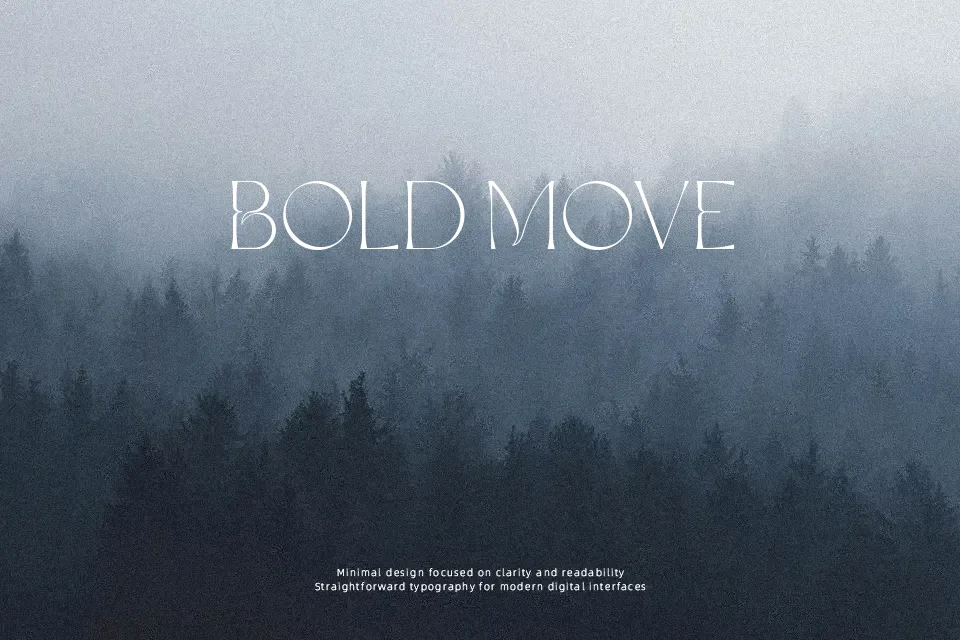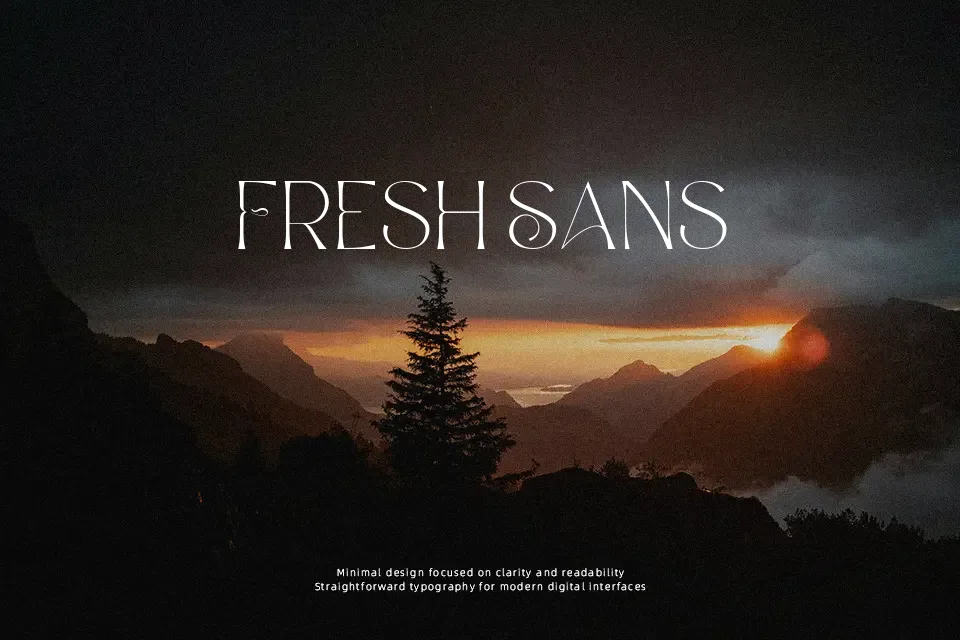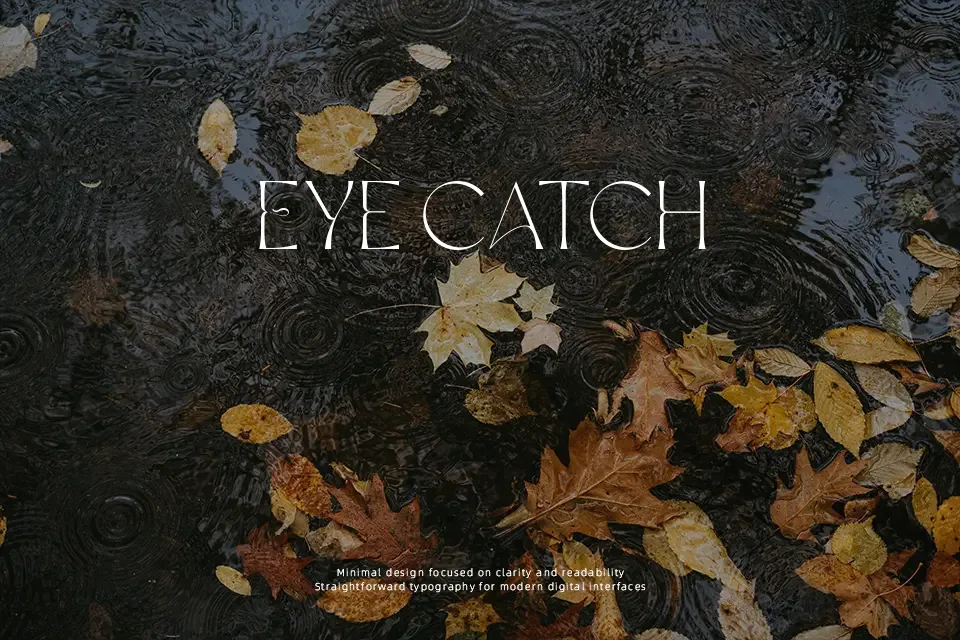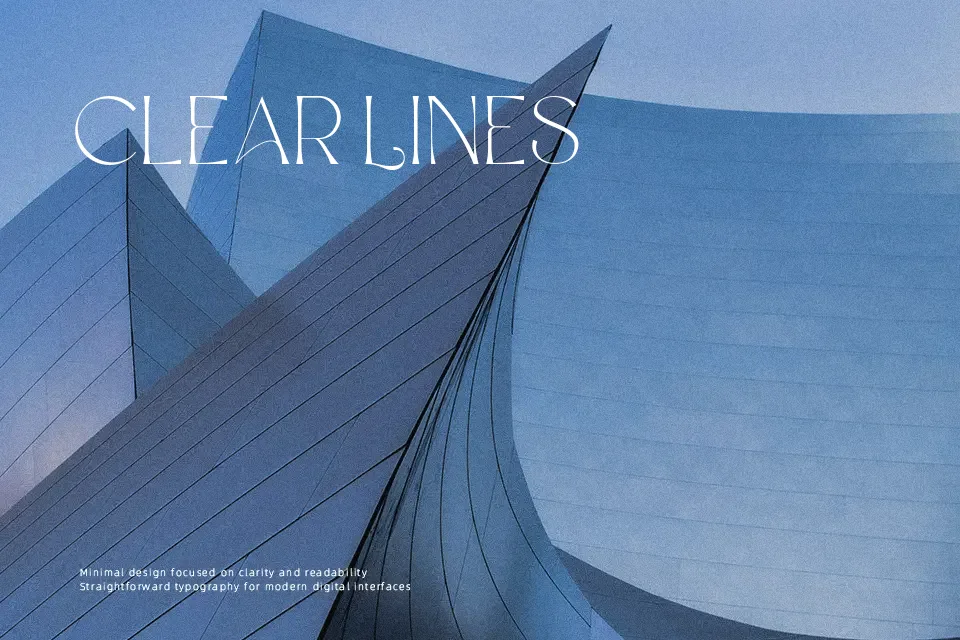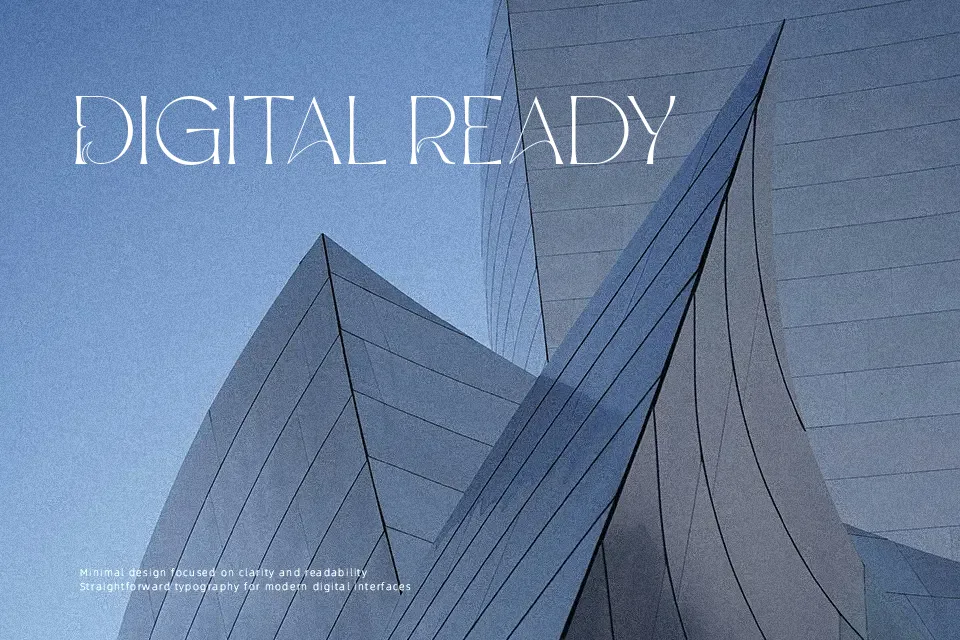
Antonyel Font
Antonyel Font leans into a classic display look with elongated shapes, slim verticals, and occasional bold accents that create a striking contrast on the page. The spacing feels tight and purposeful, giving headlines a compact, stylish rhythm rather than an airy layout. Its overall impression is elegant and slightly dramatic, making it work well for branding marks, magazine covers, social media banners, and short editorial titles that benefit from a sophisticated flair. However, the distinctive forms and contrast make it harder to read in long paragraphs or at very small sizes, so it is better reserved for short, impactful text rather than dense body copy.
branding logos and wordmarks
magazine and editorial headlines
fashion or beauty poster titles
social media promotional graphics
small-size captions or UI labels
dense data-heavy layouts